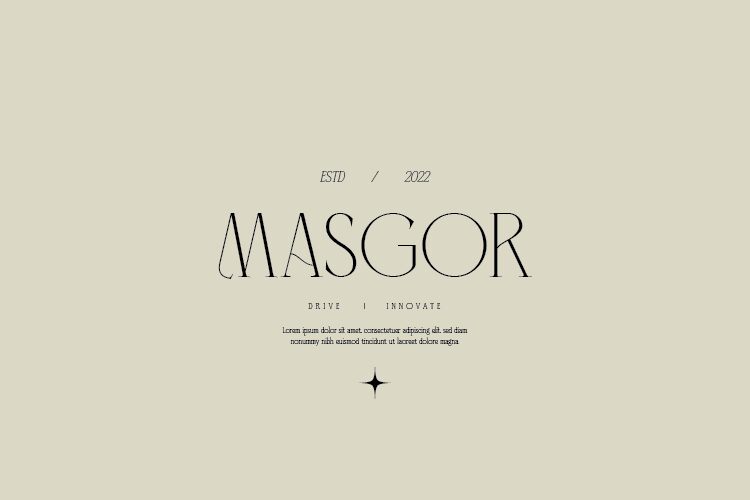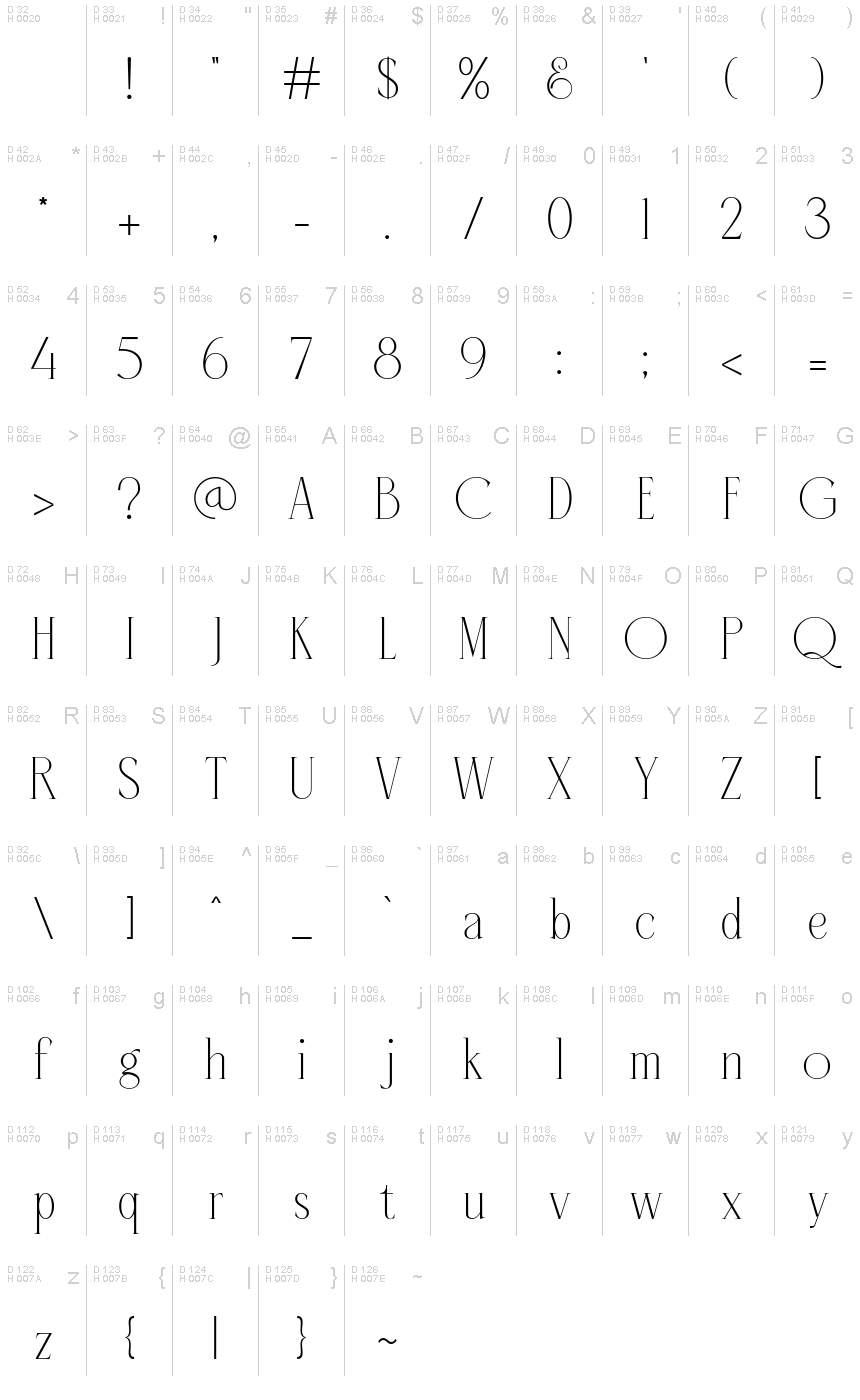
Listian
Listian, crafted by Rmdndsign, stands out as a refined serif font that marries elegance with functionality. With its light weight and condensed width, Listian offers a modern twist on classic typography, making it an exceptional choice for designers seeking to imbue their projects with a sense of sophistication without sacrificing readability. The delicate serifs and elongated form factor add a touch of class to any composition.
This font's aesthetic appeal lies in its harmonious proportions and the subtle contrast between its strokes. Its clean lines and serene spacing make it ideal for high-end branding, editorial design, and upscale advertising campaigns. Whether gracing the pages of a luxury magazine or elevating the branding of an artisanal business, Listian is versatile enough to adapt to both print and digital mediums with grace.
In summary, Listian's distinct character shines through in applications where style must meet substance effortlessly. Its suitability spans from minimalist invitations to comprehensive corporate identities – anywhere where the art of type can enhance visual storytelling.